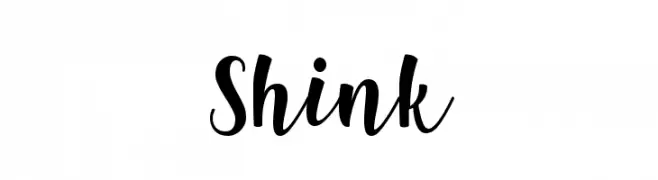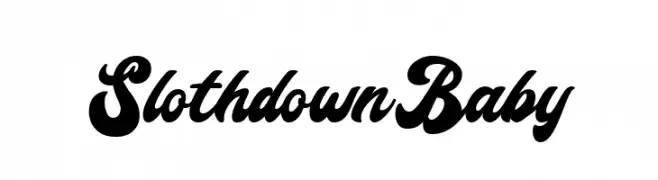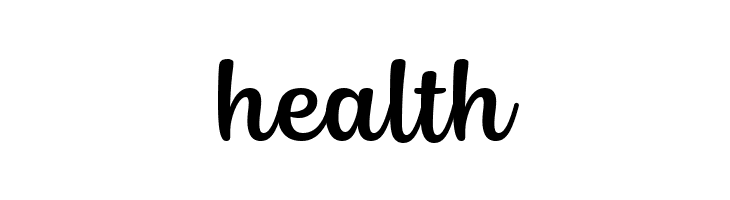
A lively, expressive handwritten font with fluid strokes and a playful elegance.
A bold, modern font with geometric influences, perfect for impactful headlines.
A bold, geometric font with a strong, commanding presence.
A bold, dripping font with a graffiti-inspired style.
A bold, geometric, and decorative font with a futuristic style.
A playful, handwritten script font with bold, rounded characters.
A cursive, elegant font with smooth, flowing letterforms and a modern touch.
A playful, hand-drawn font with curly, looping strokes and decorative swirls.
A bold, cursive font with a playful and dynamic style.
A modern sans-serif font with smooth, rounded edges and uniform stroke width.